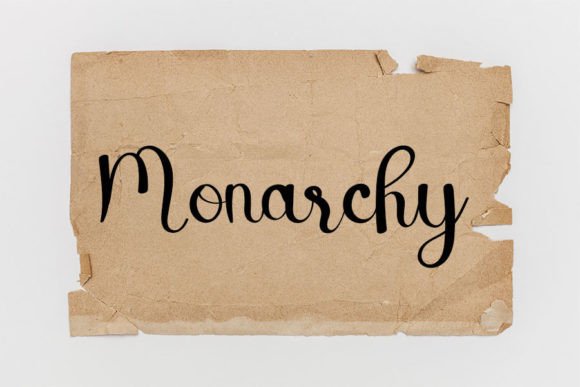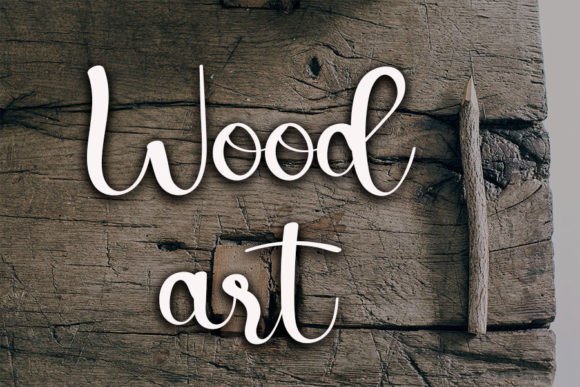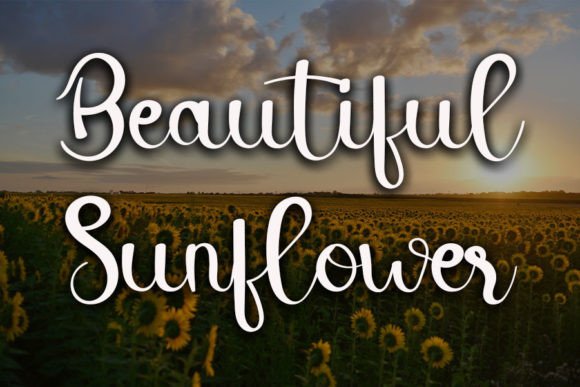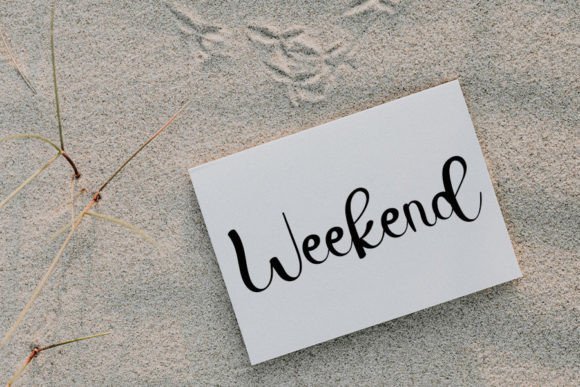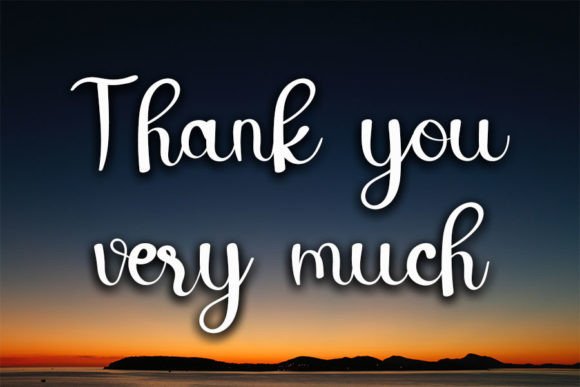
Introduction to Peach Handmade Font Font
Fonts play a crucial role in design, and the Peach Handmade Font font is a typeface that brings both character and versatility to any project. Whether you’re working on a branding project, a website, or a print design, the Peach Handmade Font font offers a unique style that can elevate your work.
Peach Handmade is a colorful handwritten font carefully created with a touch of elegance.
Clean and a little bit quirky, this font is the perfect fit for all of your logos, branding, social media posts, and crafty DIY projects .
Key Features of Peach Handmade Font Font
Why Choose Peach Handmade Font Font?
The Peach Handmade Font font is more than just a typeface – it’s a design tool that helps you communicate your message with style and clarity. Its unique character set and versatile design make it suitable for a wide range of applications, from elegant invitations to bold headlines.
With its carefully crafted letterforms and balanced proportions, the Peach Handmade Font font ensures readability and visual appeal across all mediums.
What makes Peach Handmade Font font special?
The Peach Handmade Font font stands out with its unique design, exceptional readability, and versatility across various design applications.